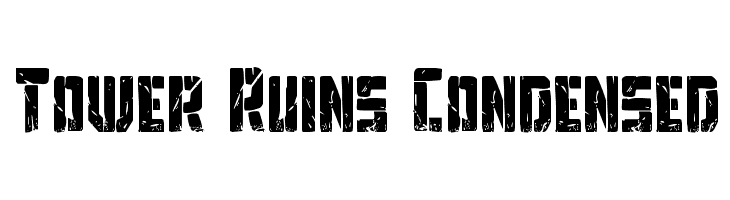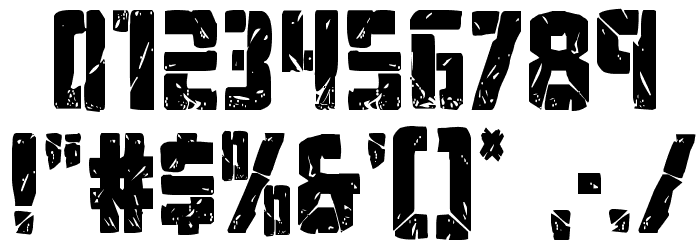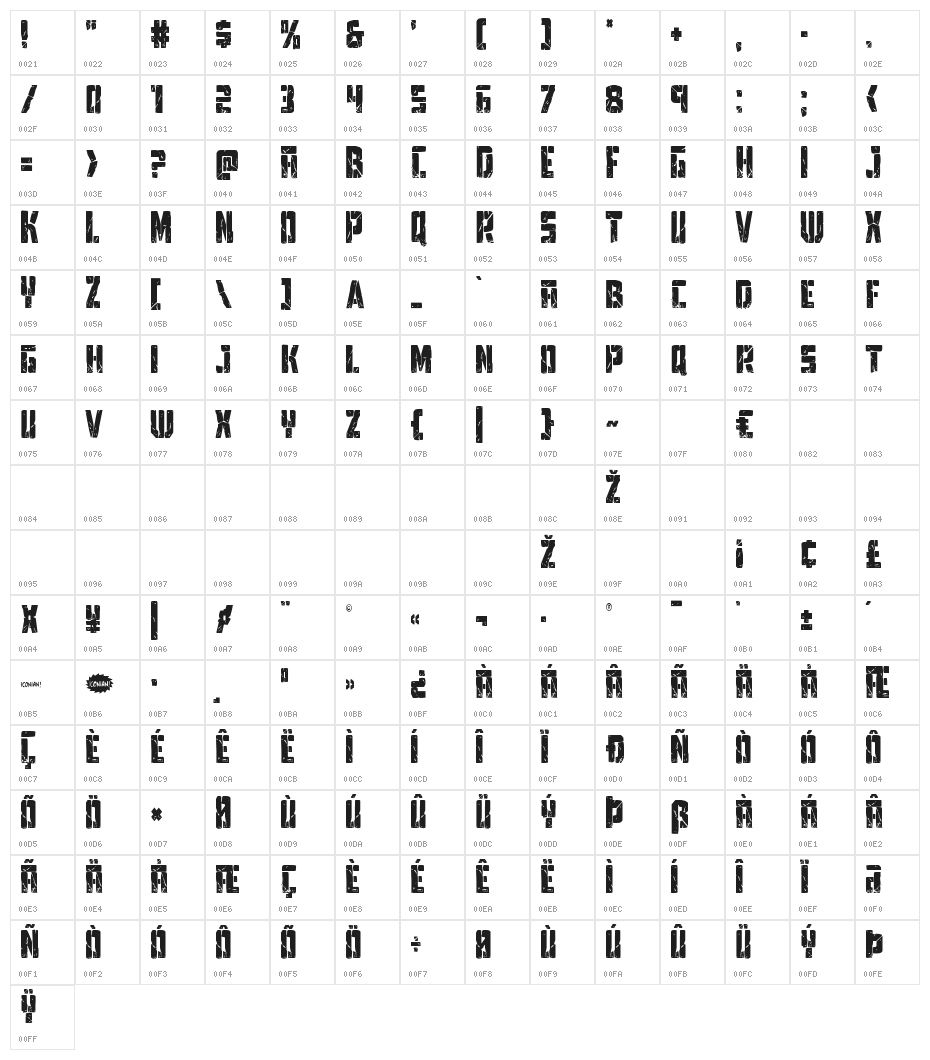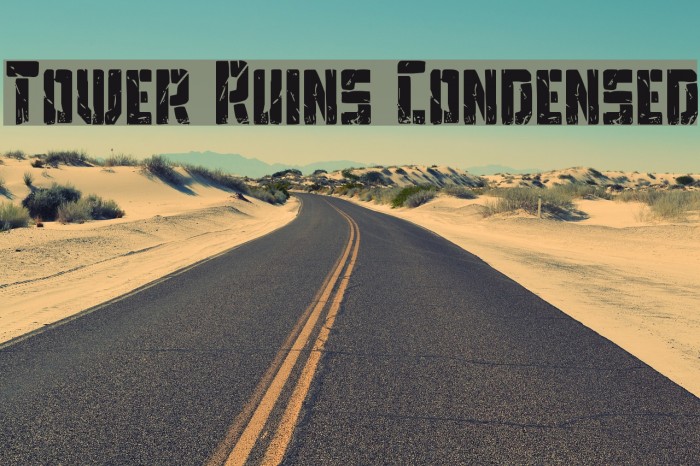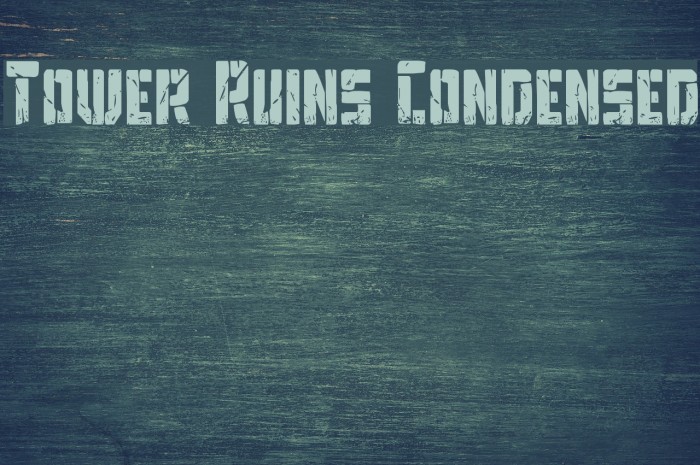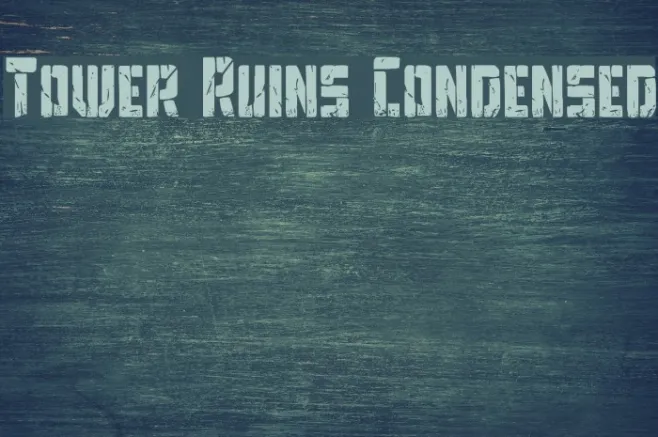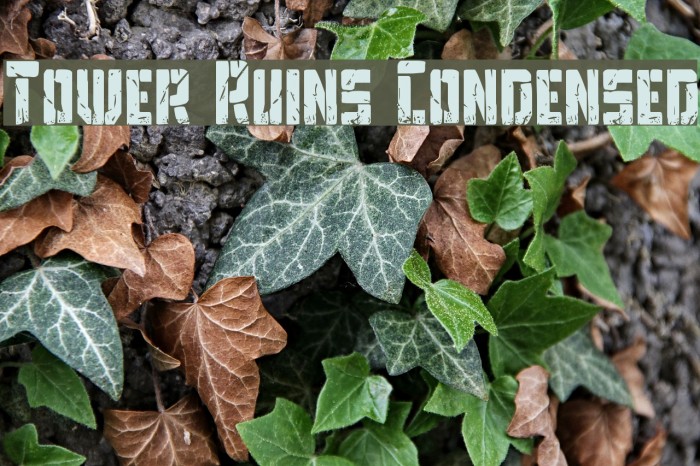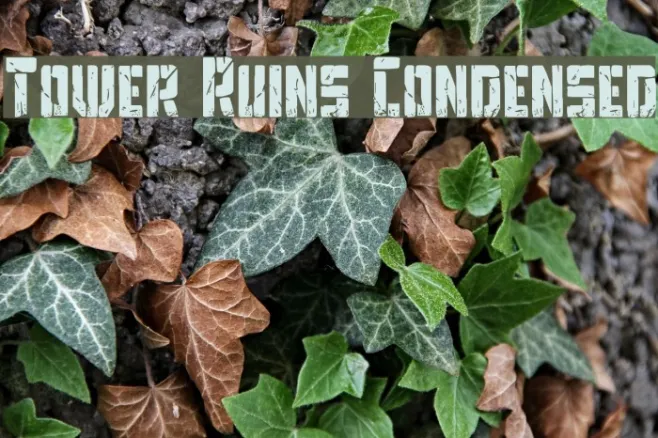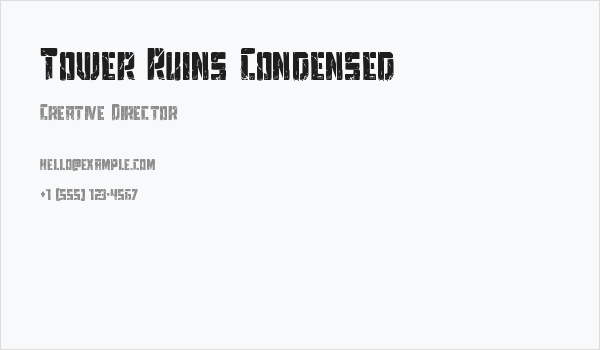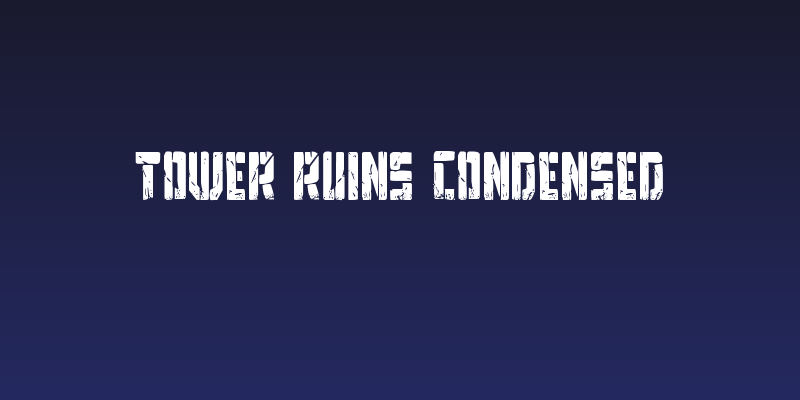
Tower Ruins Condensed Font
Tower Ruins Condensed Description
This font features a bold, distressed style with a condensed structure. The characters are heavily textured, resembling worn or eroded surfaces, which gives them a rugged and industrial appearance. The uppercase and lowercase letters maintain a consistent height, contributing to the font's compact look. The numerals and special characters share the same distressed aesthetic, ensuring uniformity across all glyphs. This font's unique design makes it stand out, ideal for projects that require a strong, impactful visual presence.
| Overall Style | Industrial, Rugged, Distressed |
| Proposed Projects | Ideal for posters, album covers, video game graphics, and branding that requires a gritty, industrial look. |